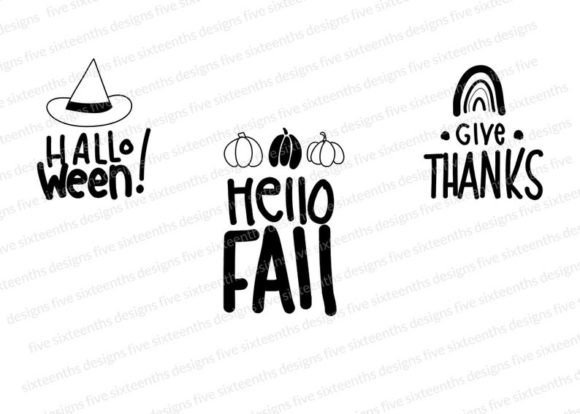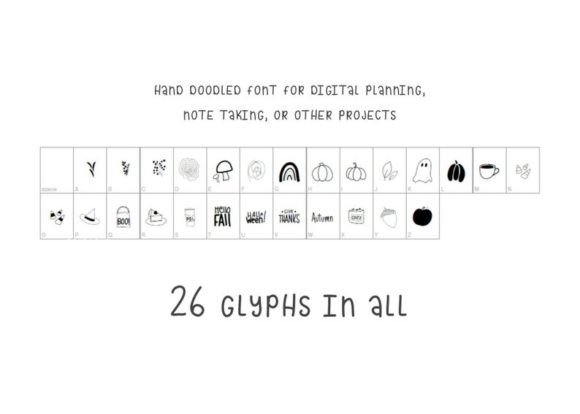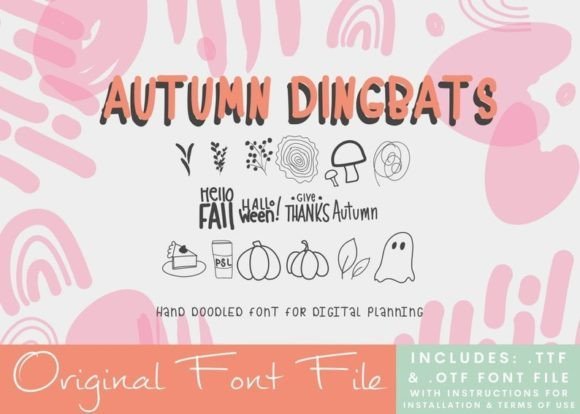
Introduction to Autumn Dingbats Font
Autumn Dingbats is a hand-doodled font designed for digital planning.
Use this font on your computer, laptop, tablet, or phone for a fun doodled look This would be cute as printed stickers for a physical planner as well.
Key Features of Autumn Dingbats Font
Why Choose Autumn Dingbats Font?
Autumn Dingbats Font offers exceptional quality and versatility, making it a valuable addition to your design toolkit. Whether you’re creating for personal projects or commercial use, Autumn Dingbats Font delivers professional results.